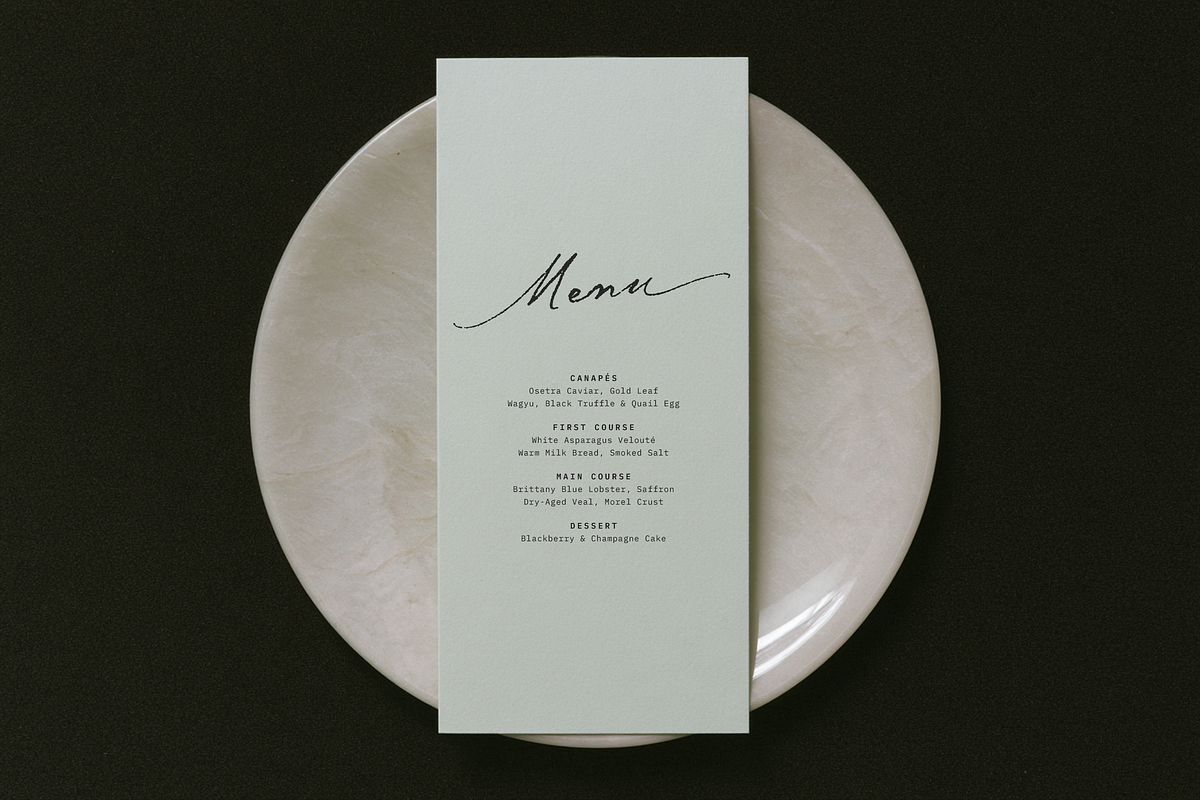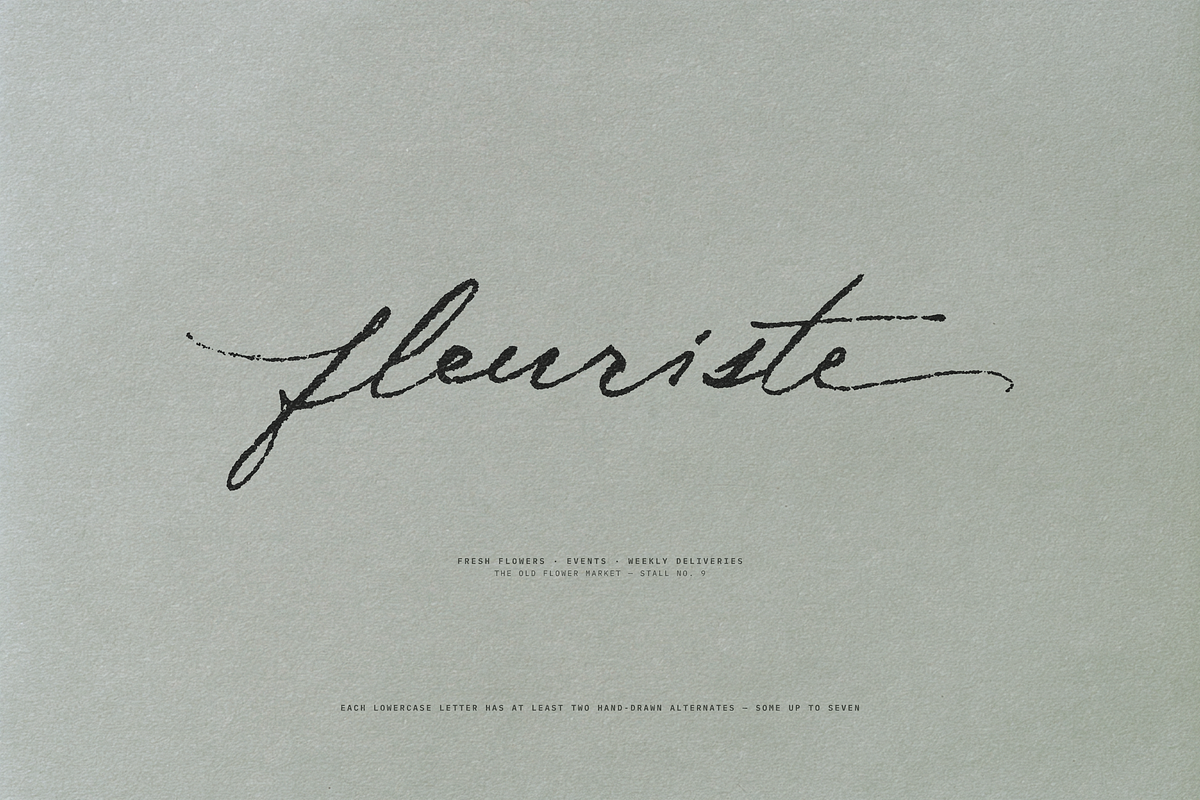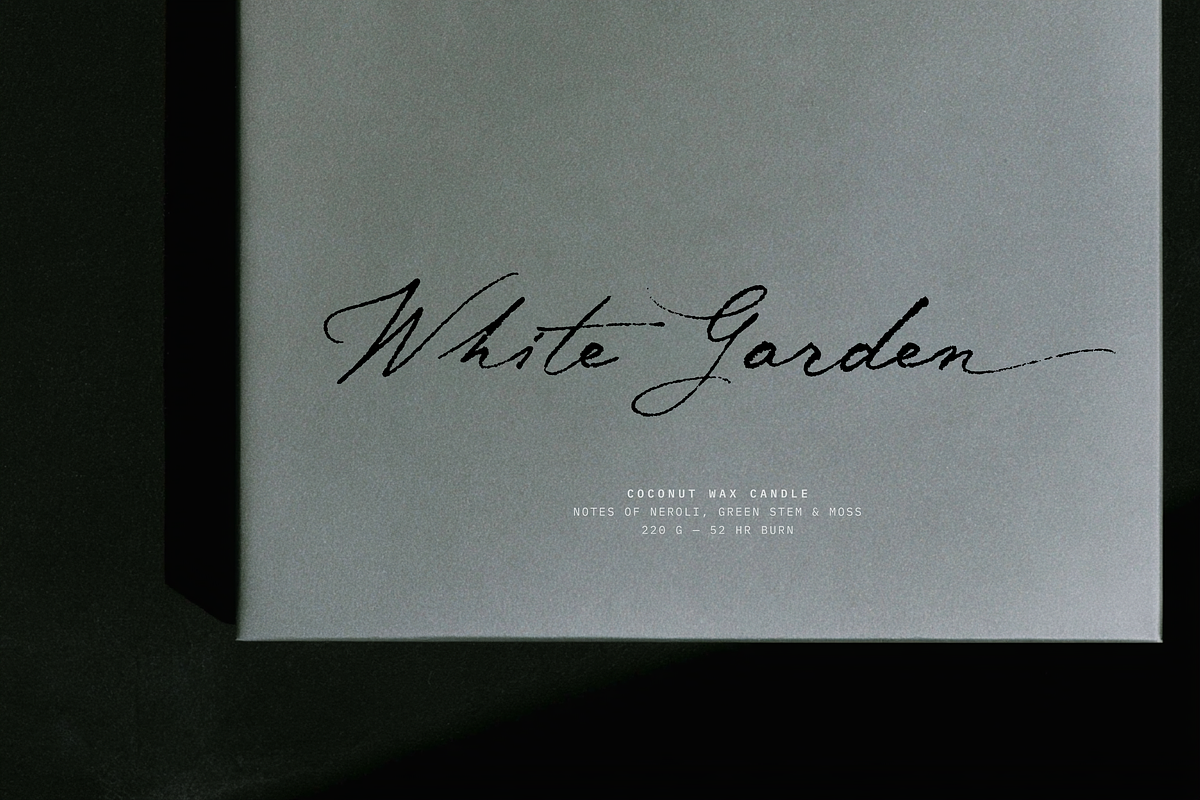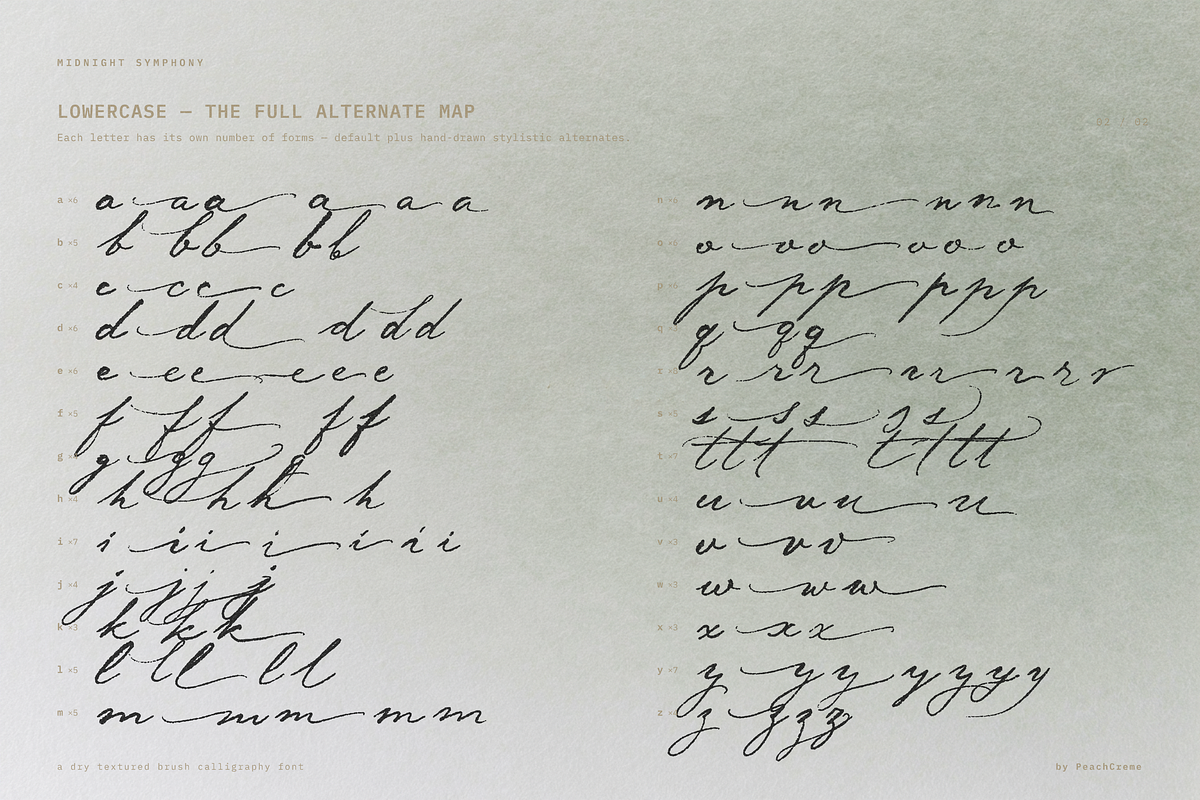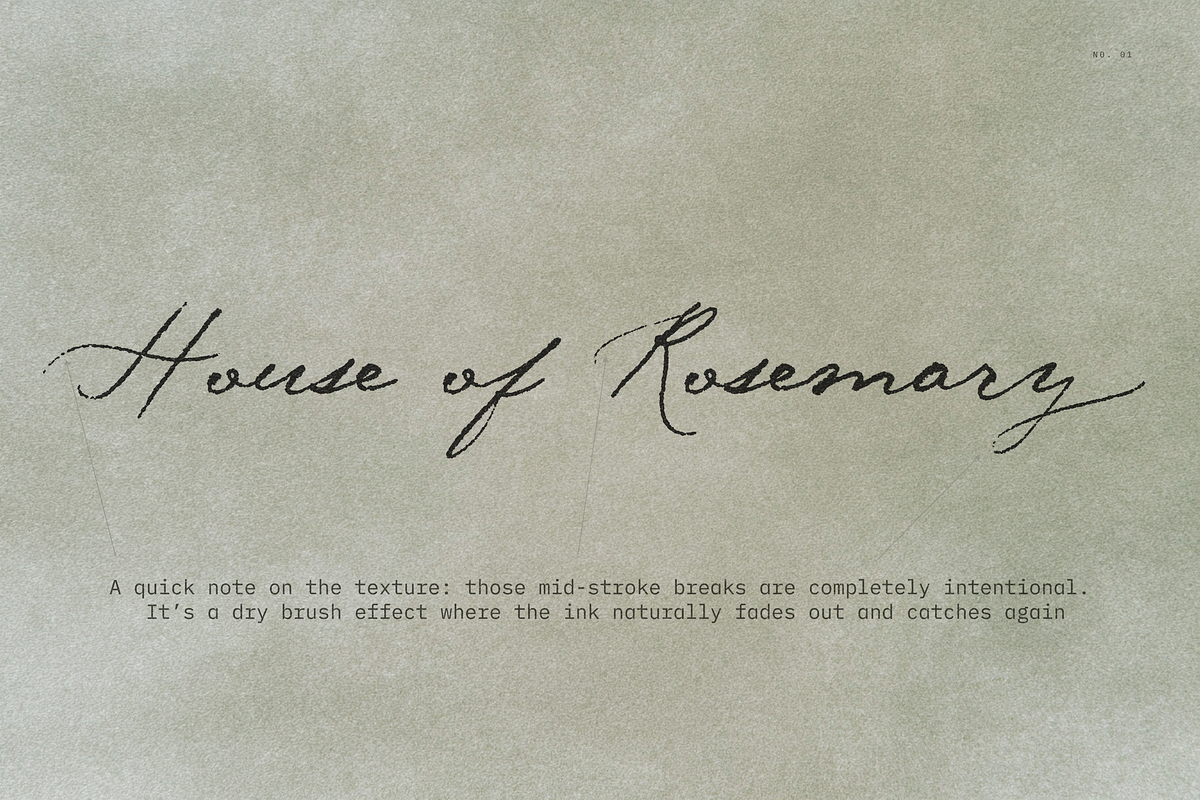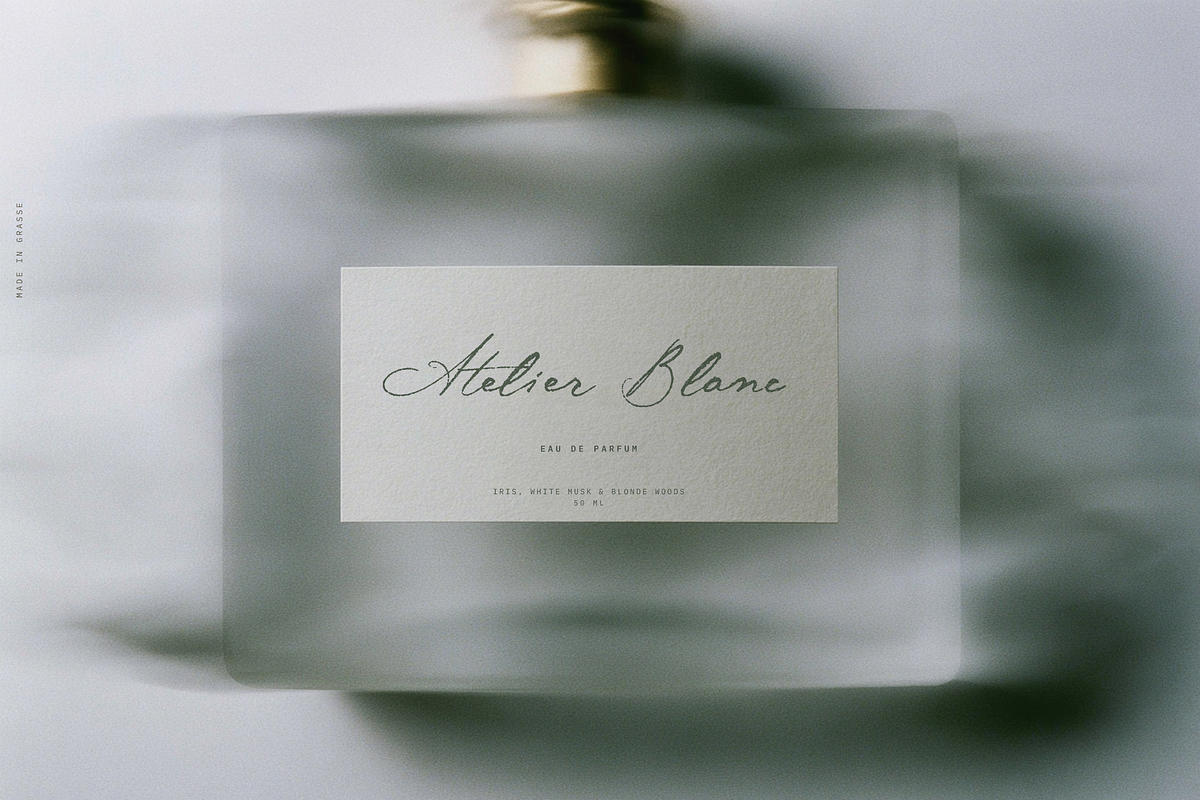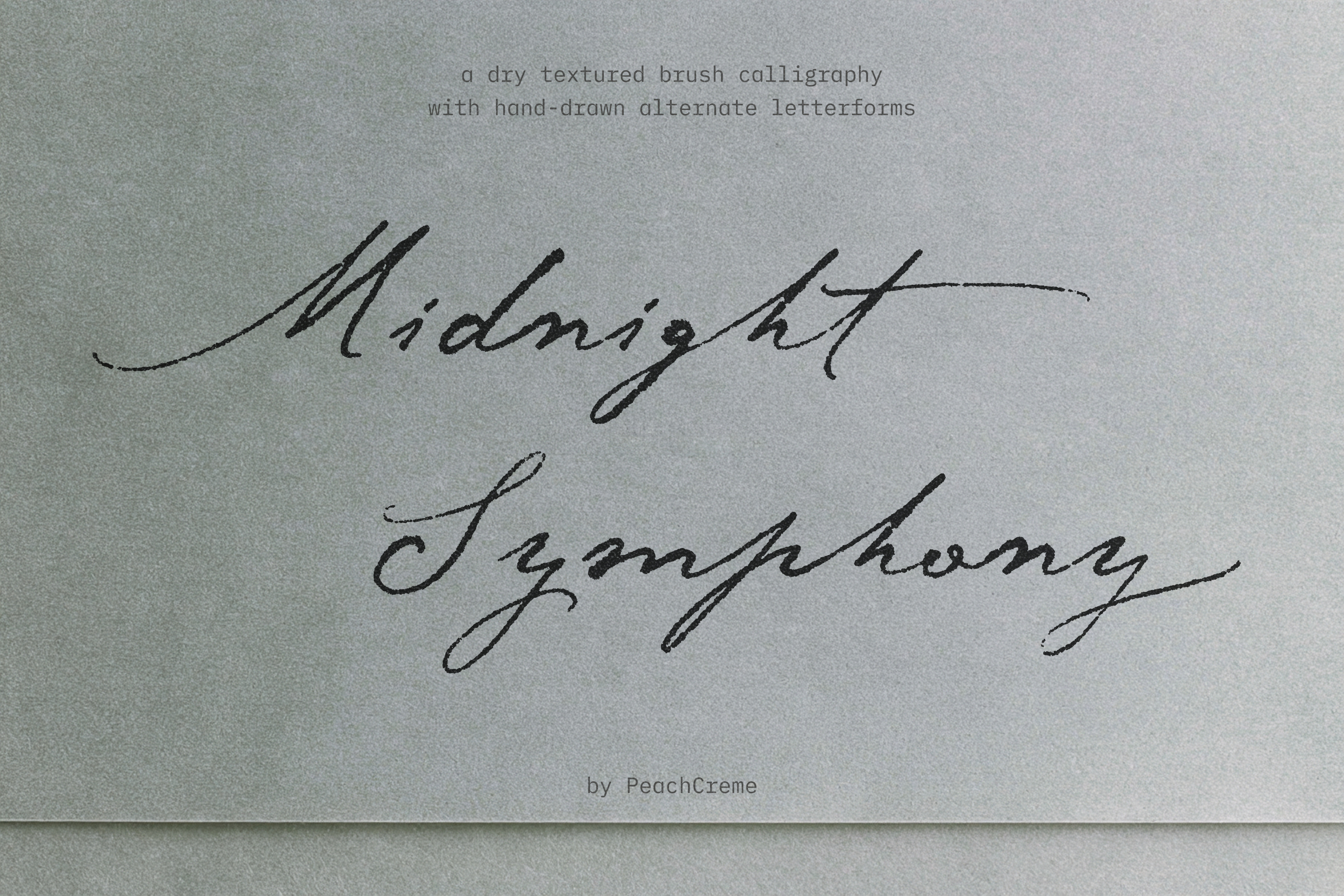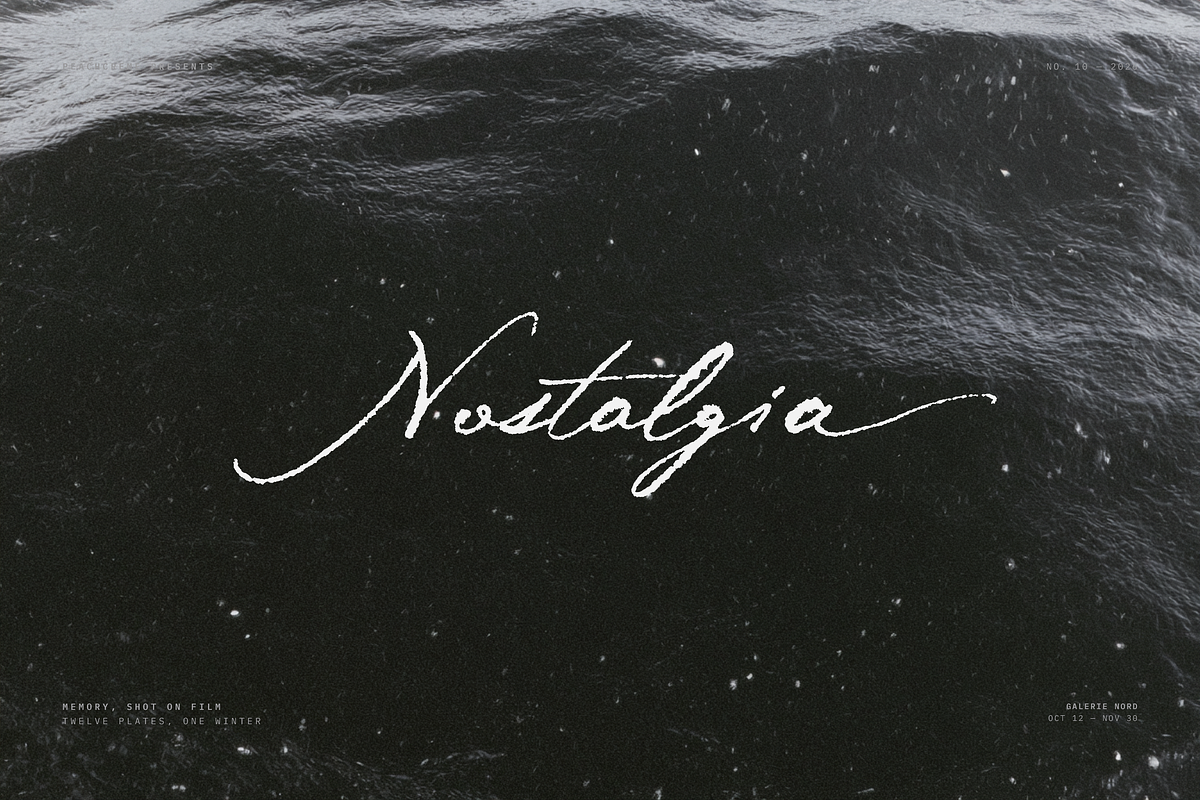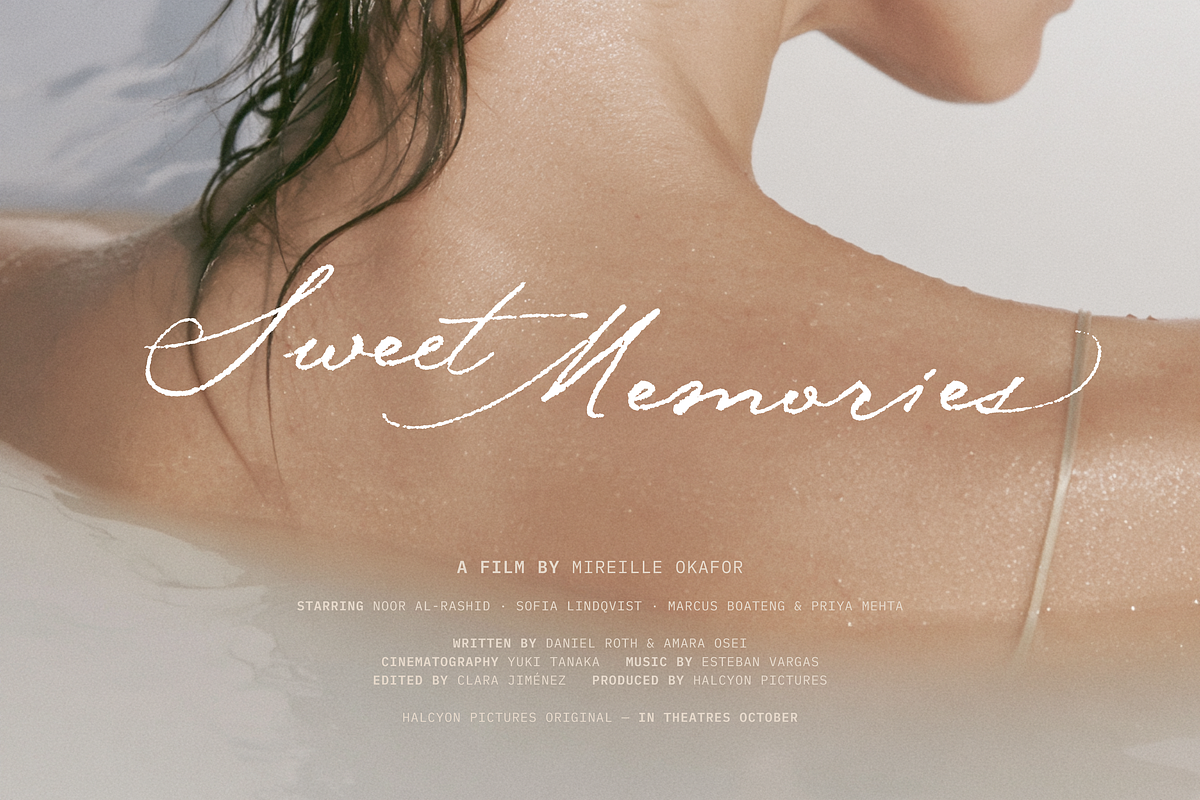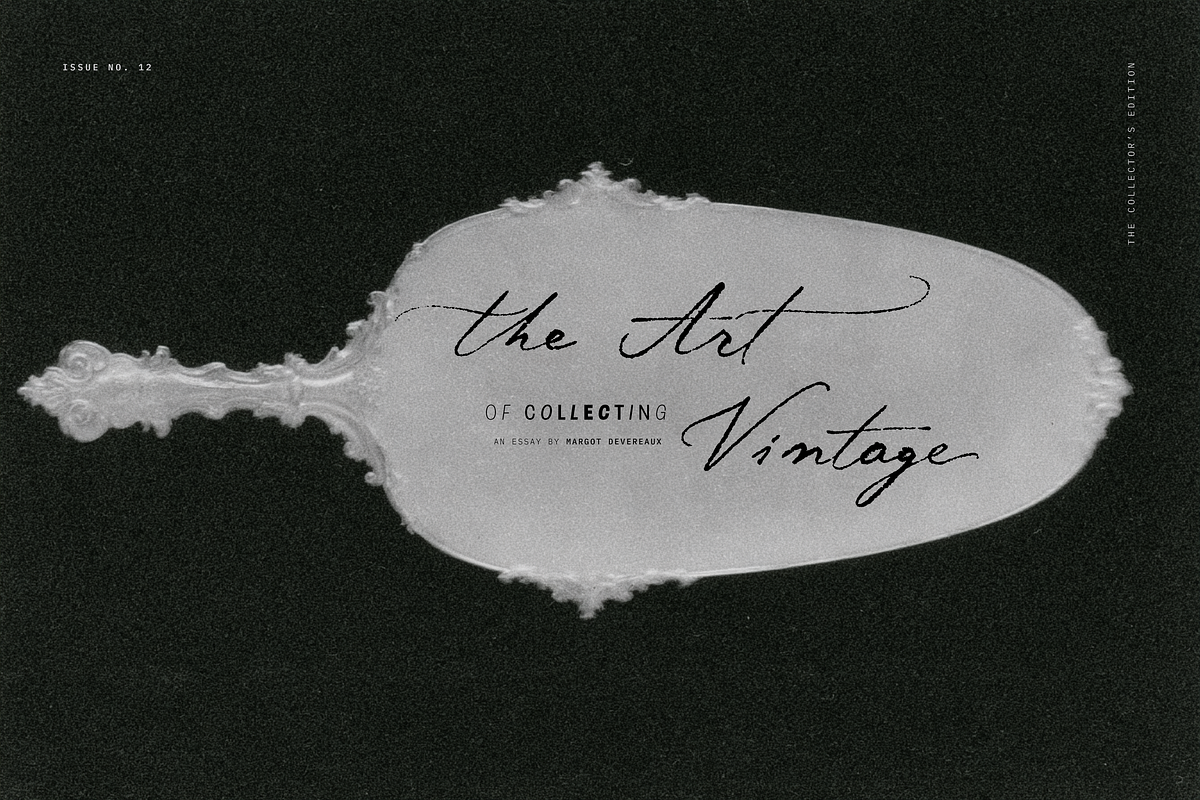
Midnight Symphony // Script font
Midnight Symphony is a raw, hand-drawn brush script that keeps its original dry-brush texture. We left the strokes un-smoothed and free of artificial roughening to maintain a balance between expressive calligraphy and readable handwriting, ensuring it stays clear at smaller sizes. The mid-stroke breaks in the texture are completely intentional—it is a dry brush effect where the ink naturally fades out and catches again.
To prevent a repetitive layout, the font includes 115 alternate lowercase forms and 43 alternate capitals across 7 stylistic sets. Most letters have two or three variations so the text looks genuinely hand-lettered. We also included 15 custom double-letter ligatures, like bb, ll, and tt, for a natural connection.